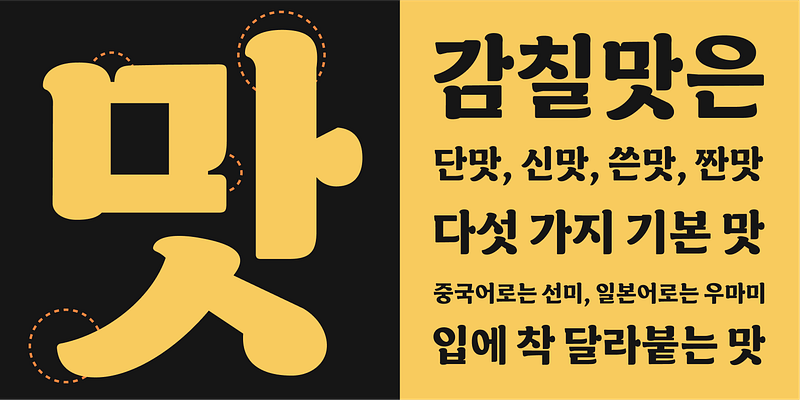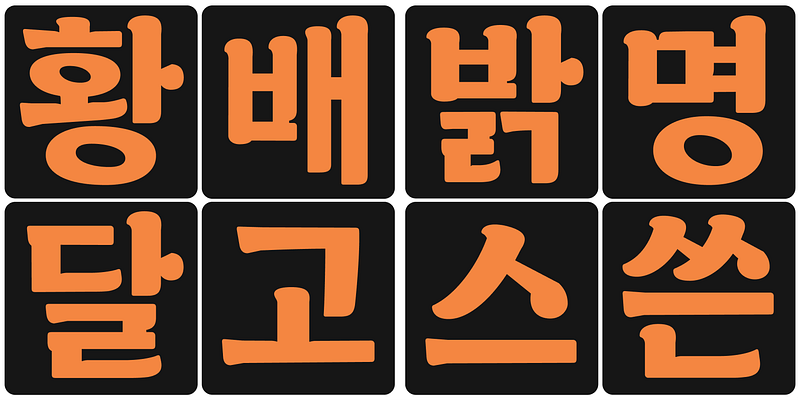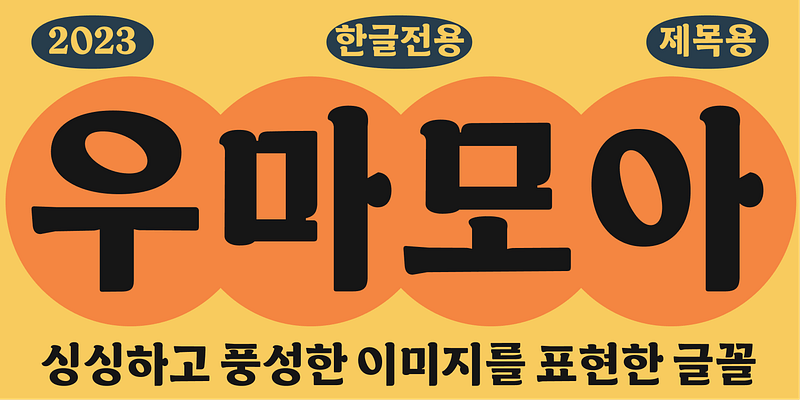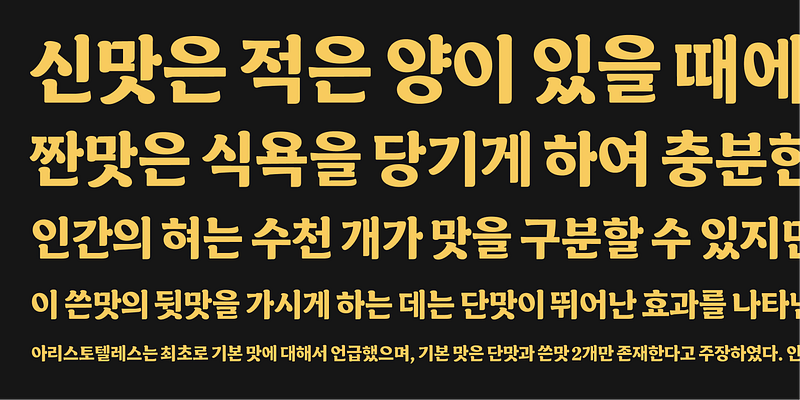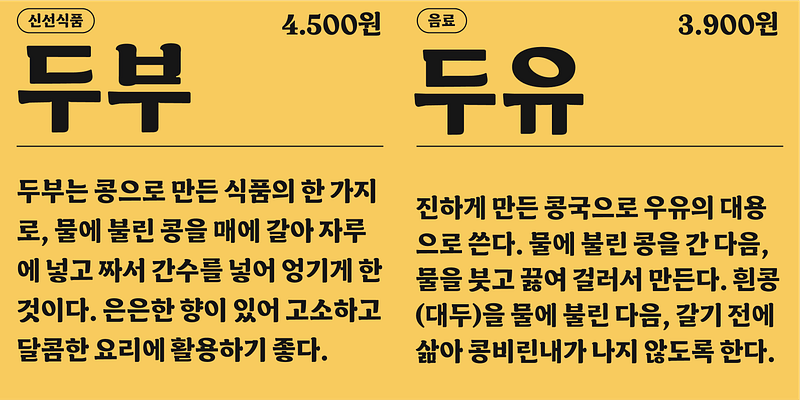
“Umamor”is a font with fresh and rich images in letters. The oval ‘ieung ㅇ’ and the tilted counter are unique and distinctive. The shapes at the beginning and end of the stroke represented the ink-filled brush feeling. In order to avoid clumping at the corners of the letters such as ‘e’, the ink trap form is used to express interesting texture. It’s a typeface for the title that was created for a custom project. The exclusive license period has ended and I am adding it to my personal retail font library.
Minjoo Ham
Minjoo Ham is an independent type designer and a half of Hypertype foundry. She completed the TypeMedia master course at the Royal Academy of Art in The Hague, Netherlands, concentrating on Latin and Hangul double-script, since then she is producing multi-script font families for multi script font project.